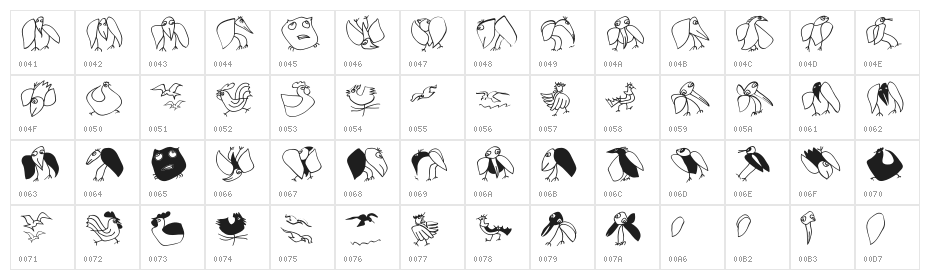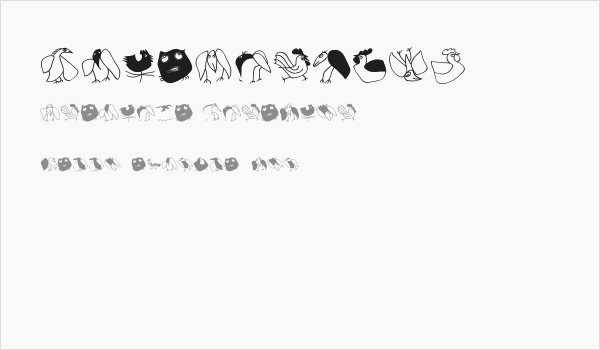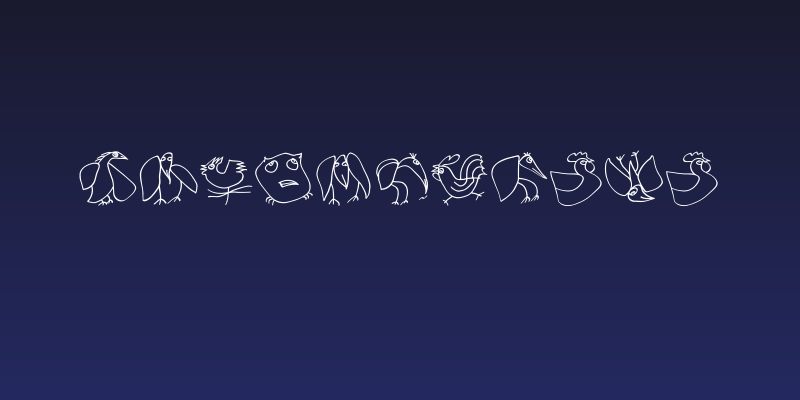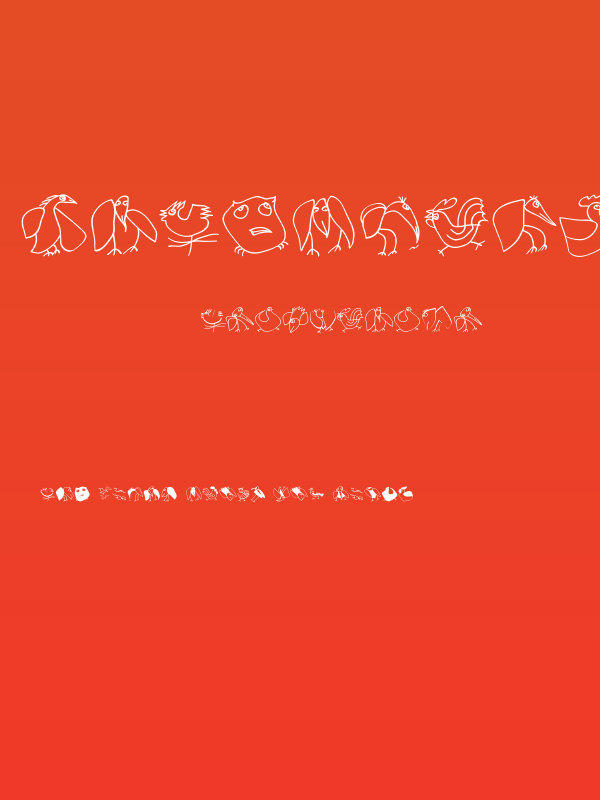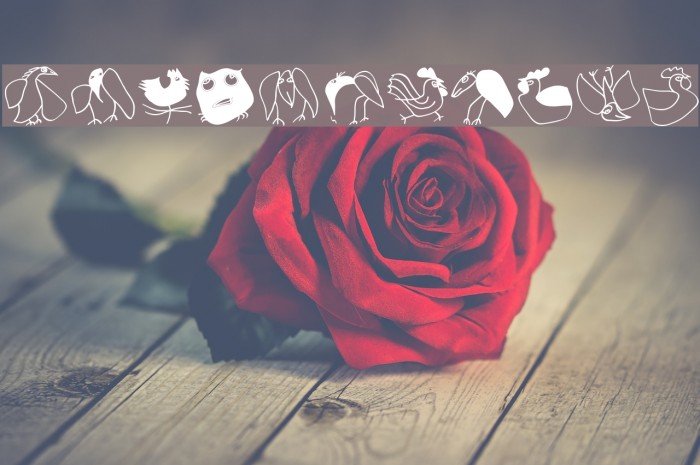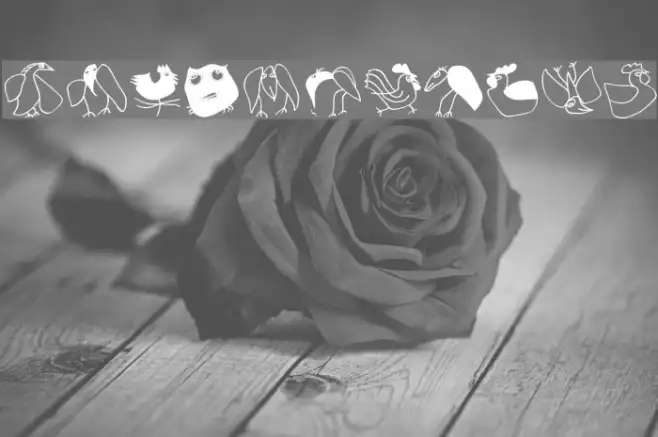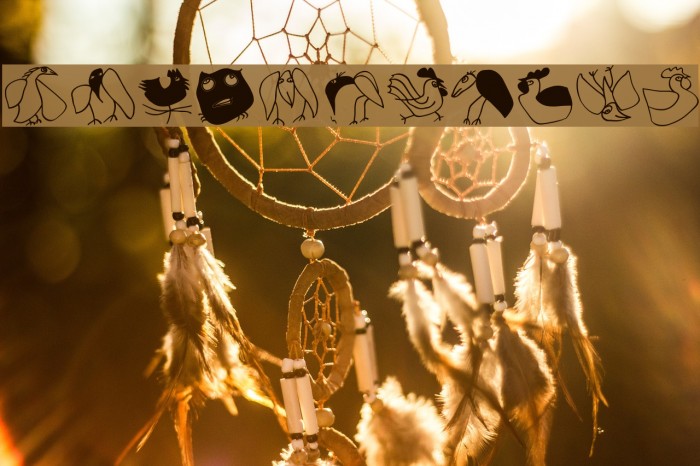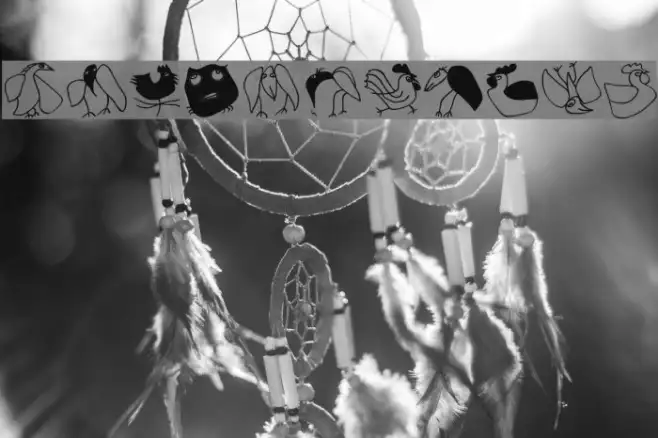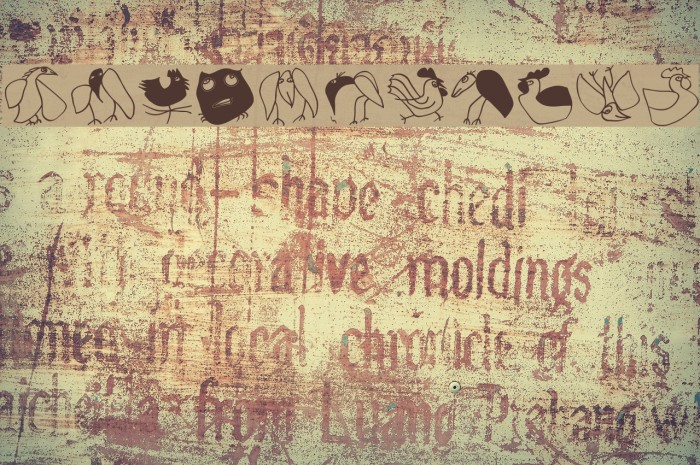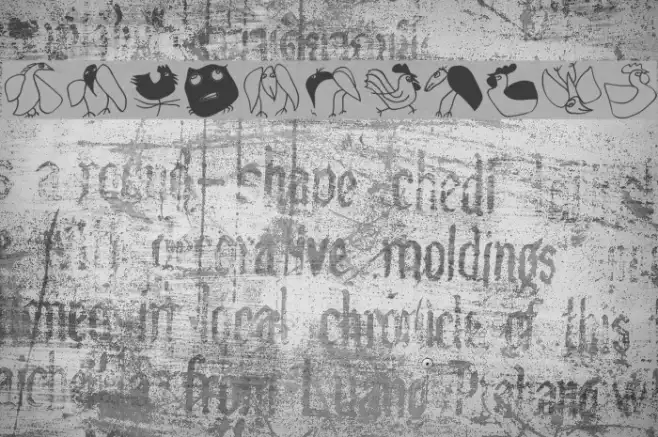
LateBirdsFS Font
LateBirdsFS Description
This font is a whimsical and playful collection of bird illustrations, each character represented by a unique bird drawing. The style is hand-drawn with a mix of detailed and abstract elements, giving each bird a distinct personality. The characters vary in shape and form, with some featuring bold outlines and others more delicate strokes. The overall appearance is lighthearted and artistic, making it ideal for creative and informal projects.
| Use Case | Logos, Illustrations, Creative projects |
| Proposed Projects | Ideal for children's books, greeting cards, playful branding, and creative art projects. |